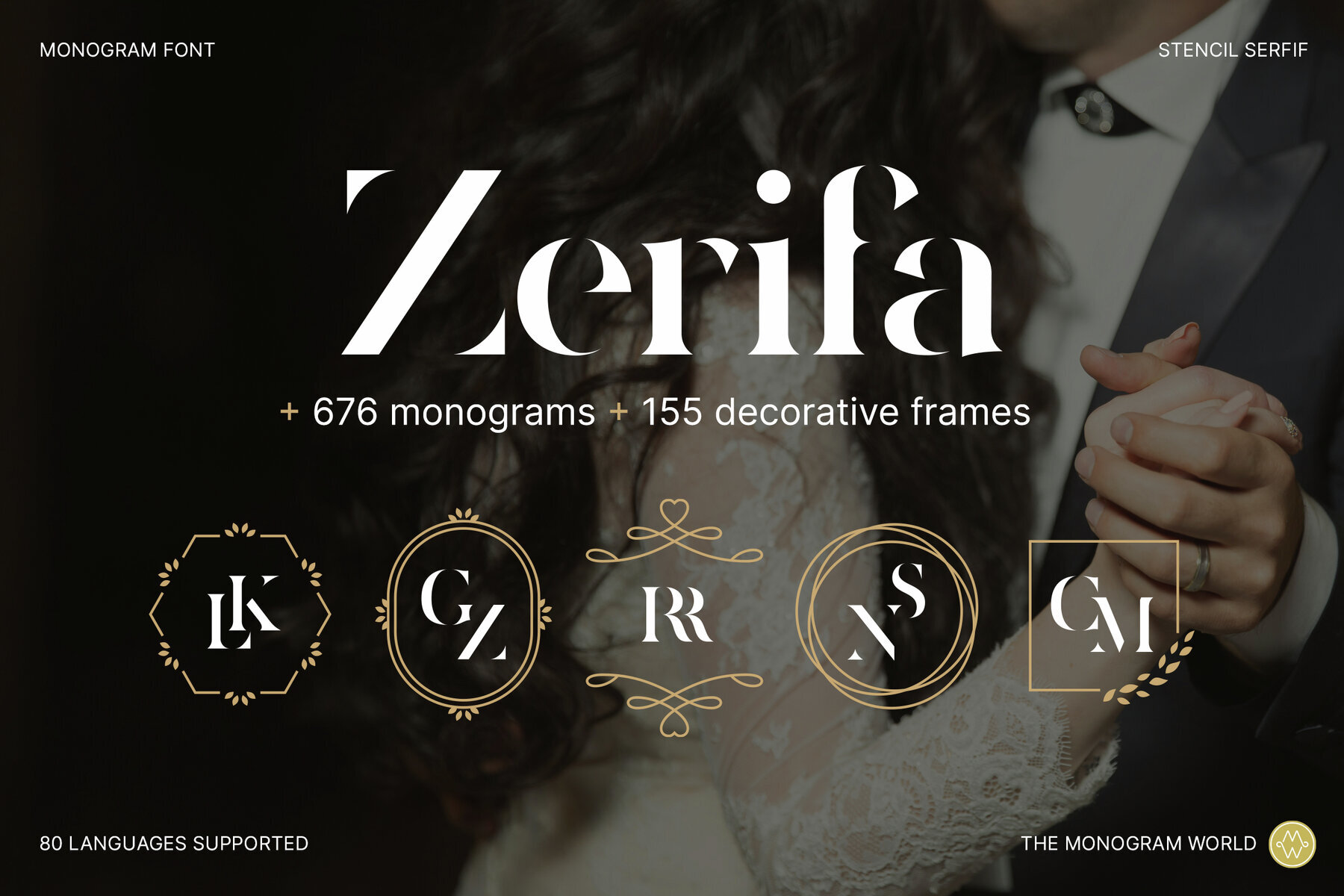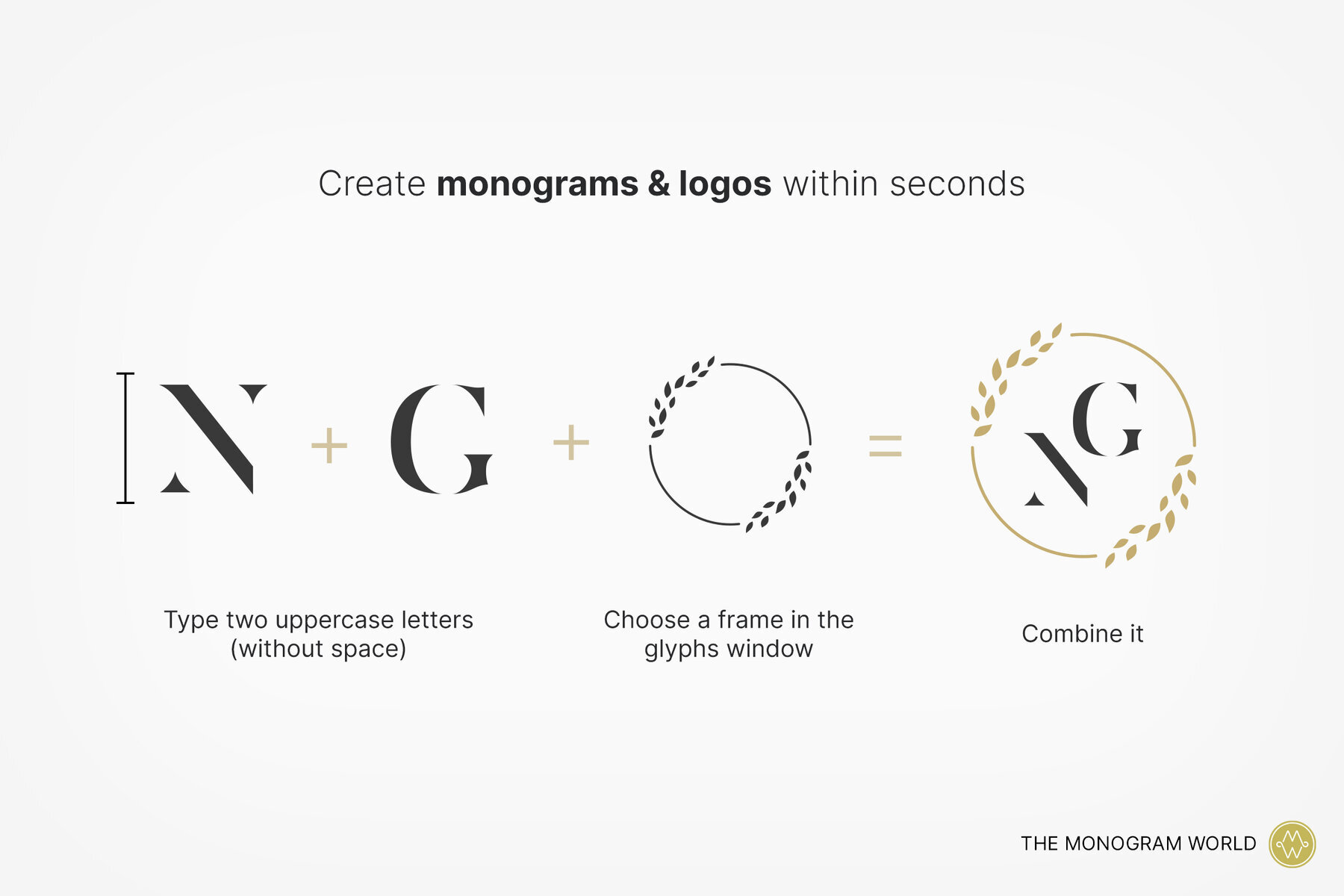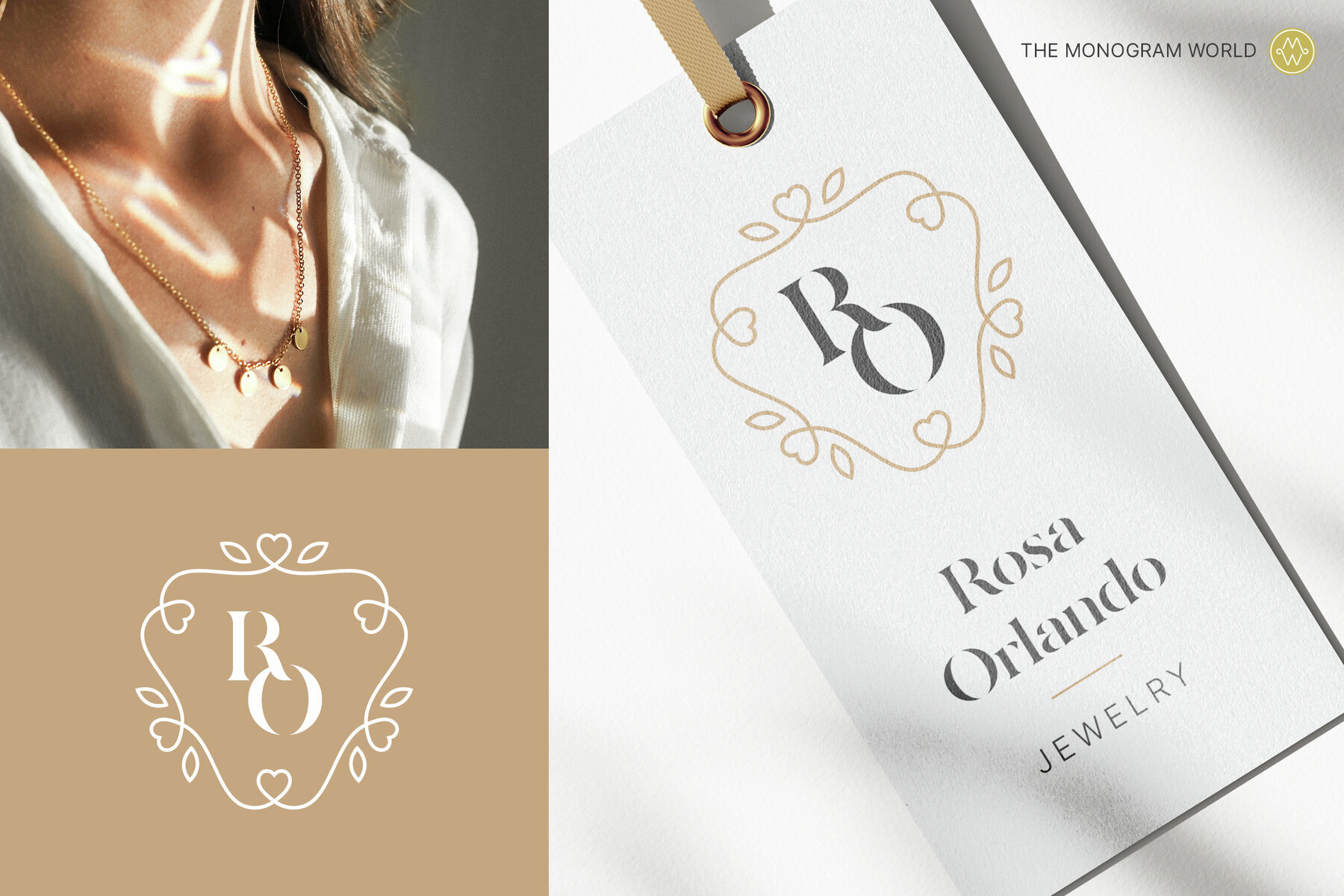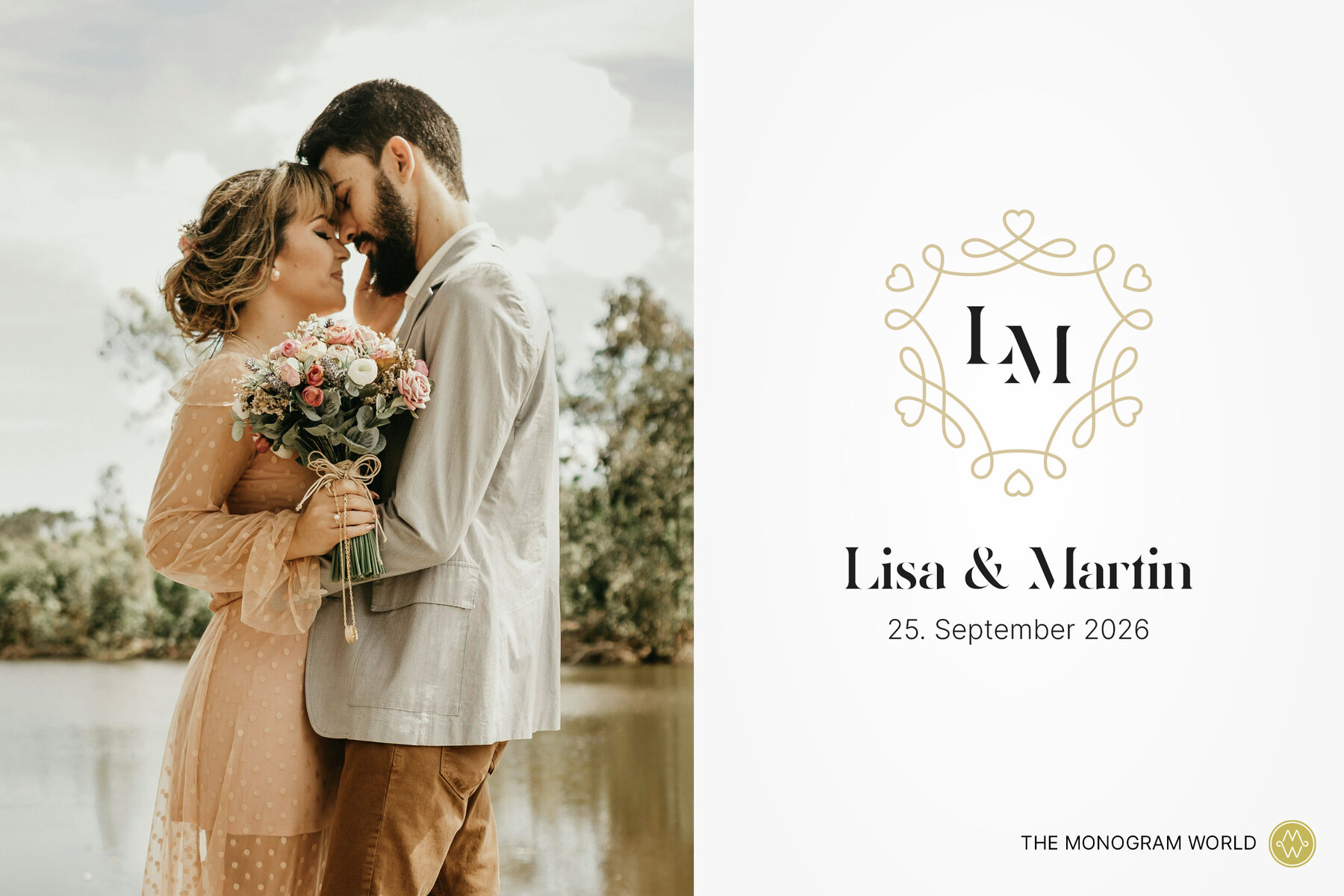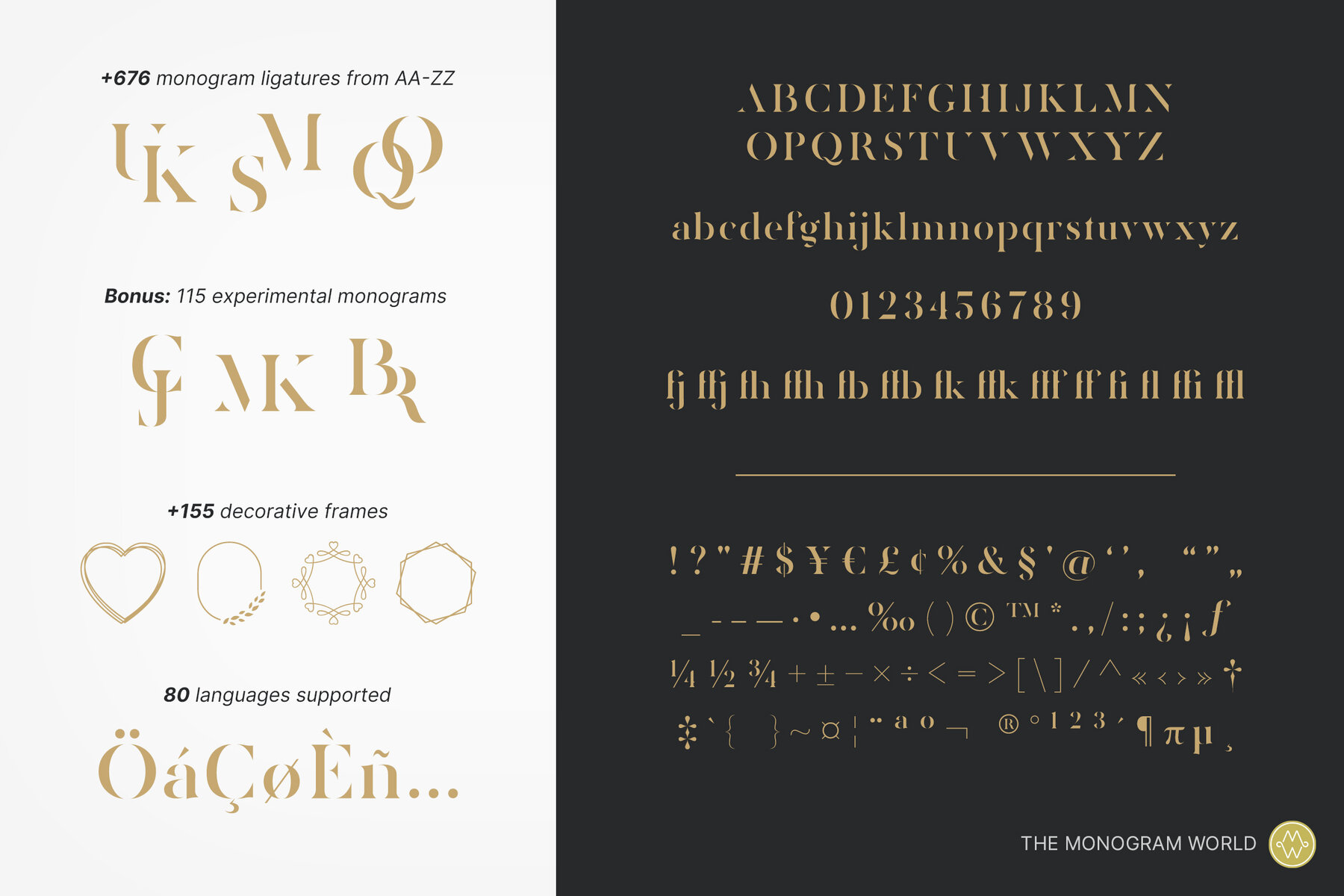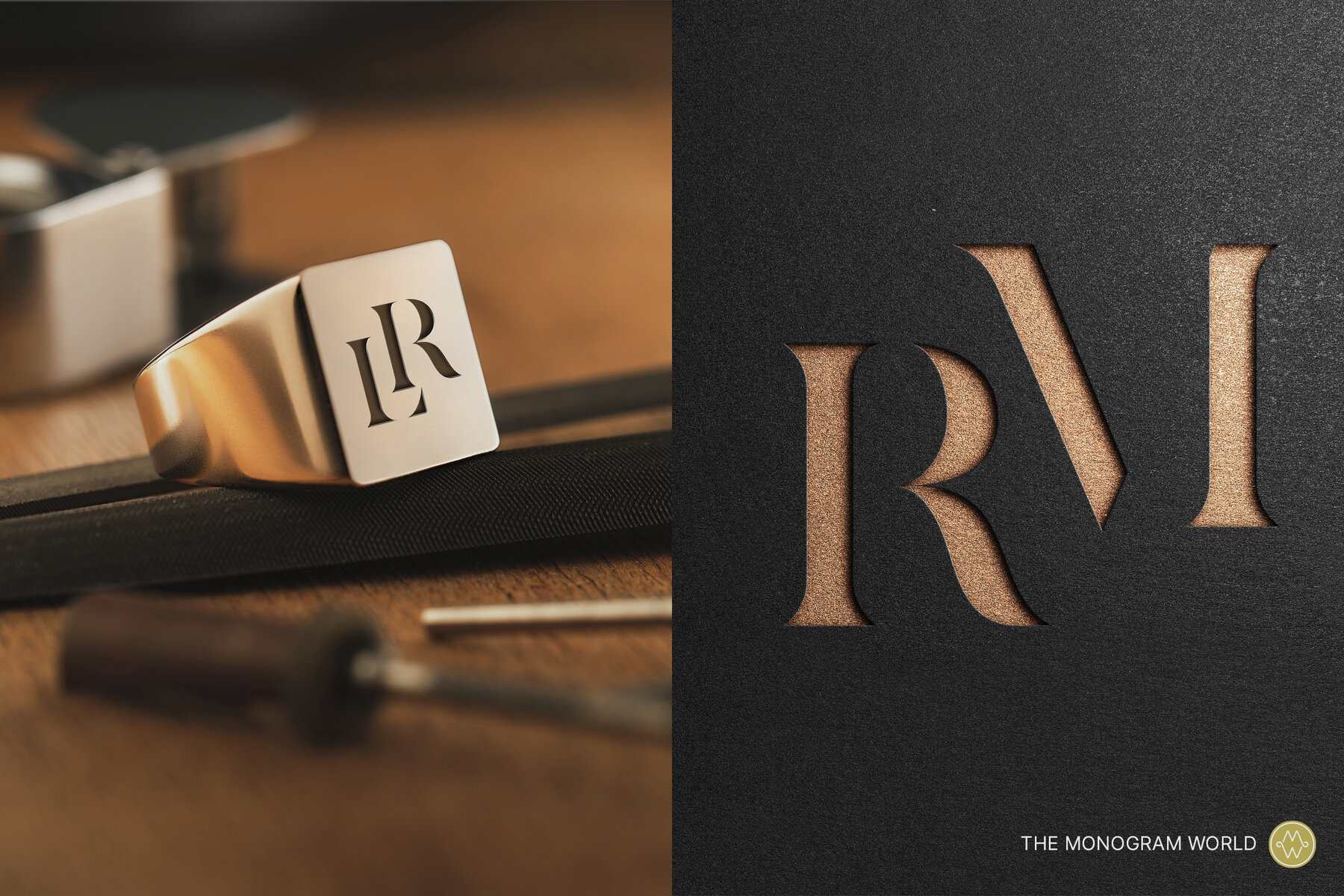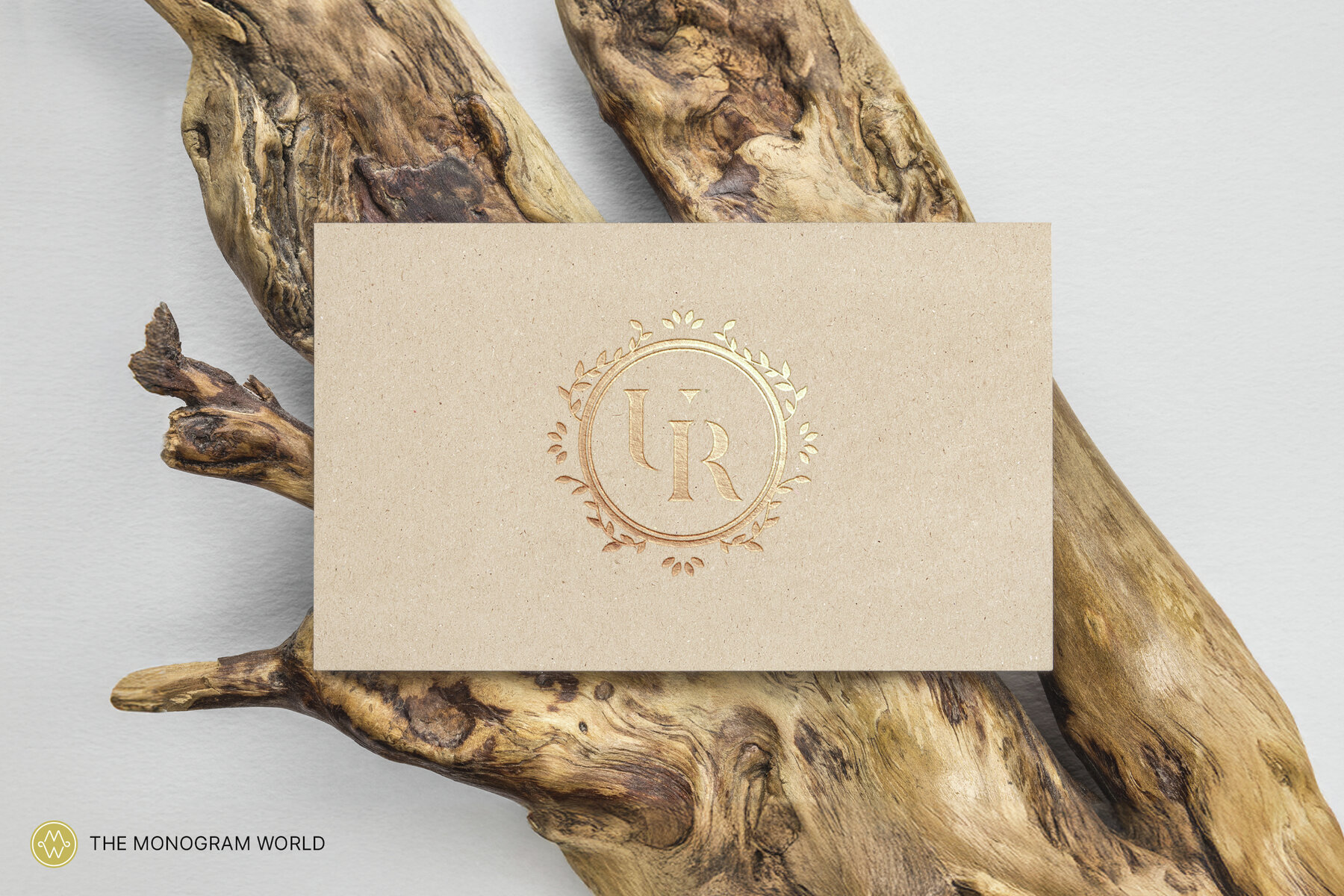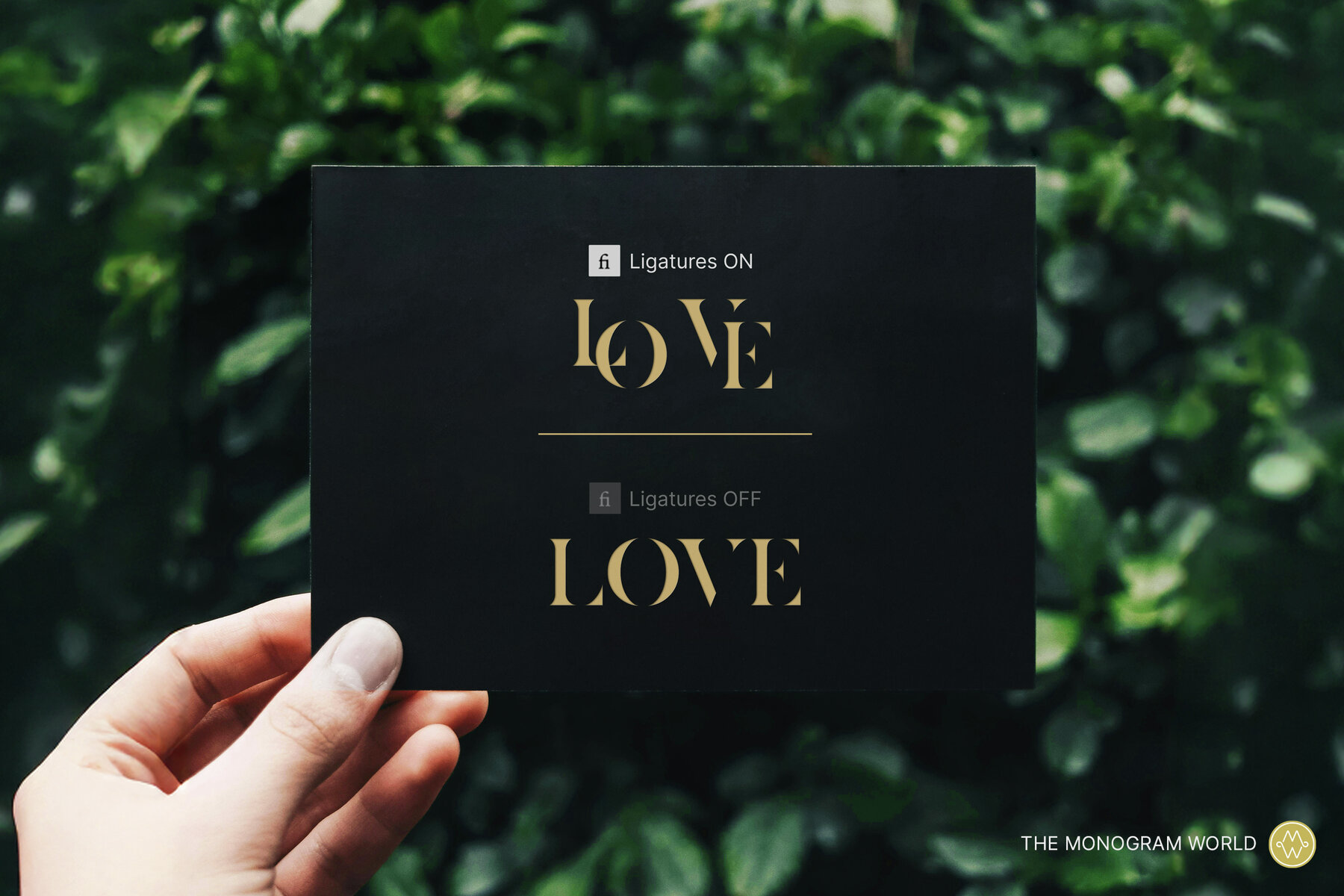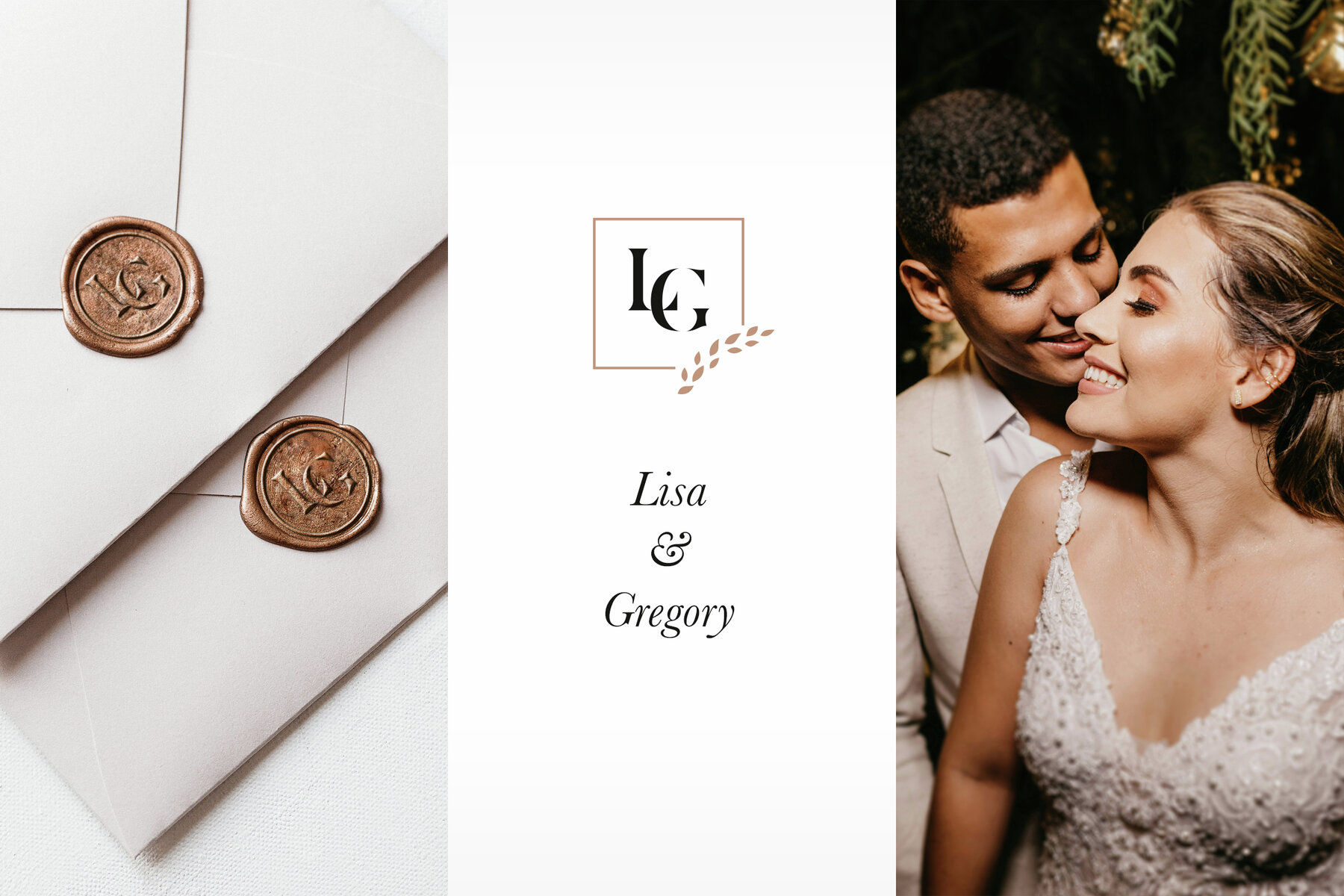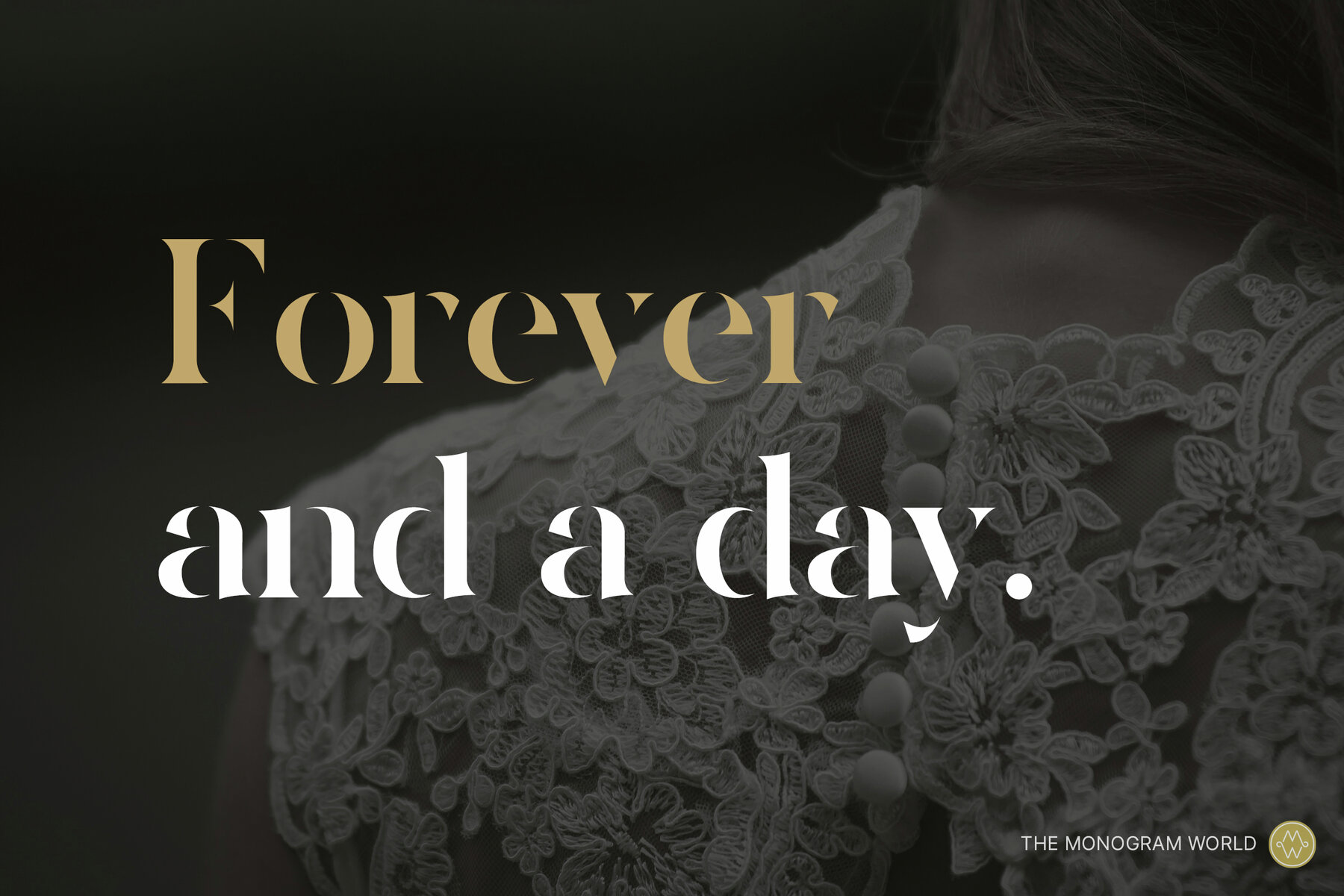
Zerifa = Display font + monogram logo creator toolkit Zerifa is a unique „stencil serif“ typeface that includes 676 pre-designed monogram logos and 155 fancy frames. It’s so easy to create amazing logos just with a few clicks! Features 2 in 1: Display Type Face + Monogram Logo Creator Toolkit A unique combination of two worlds! 676 monograms + 115 bonus monograms + 155 frames = 122.500+ possibile variations Style: The sharp, steeply tapered serifs give it a bold, modern and elegant appearance, while the carefully crafted curves embody the essence of perfection. The combination of thick stems and disappearing hairlines creates the most possible contrast, but still assuring perfect readability. Examples of use: Zerifa delivers a highly sophisticated feeling, making it perfect for classy wedding monograms. But not only that, it is also an excellent choice for luxury brands and products in the fields of beauty, fashion, jewelry, art, ateliers, handicraft, yoga studios, wine & spirits, hotels or restaurants & bars. ::: FAQ ::: Software: Can I use it in Word / PowerPoint / Canva? The general font works fine. To get full functionality of all the special features (like ligatures and decorative frames) you have to use professional design software like Adobe Illustrator, InDesign, Photoshop, Sketch, Affinity, etc. What are ligatures? A ligature is a combination of two or more letters that are joined together into a single character to improve readability or create a unique design. It's commonly used in typography to enhance the flow of text or for decorative purposes in logos and design work. Ligatures ON / OFF What is a monogram logo? A monogram logo is a design that combines two or more letters, typically the initials of a brand or individual, into a single symbol or mark. It's often used to create a simple, stylish, and recognizable identity. A wedding monogram often uses the initials of bride and groom (all genders) first names to represent their connected lives. What can I use a monogram for? You can use a monogram logo for wedding design and all kind of branding purposes, such as representing a company, personal brand, or product line. They're often used on business cards, product packaging, clothing, stationery, and even in digital media to create a distinctive and professional visual identity. Monograms are especially popular for luxury brands, fashion labels, and personal branding. Full language list (Adobe Latin-1 + a few more) Afrikaans, Albanian, Asu, Basque, Bemba, Bena, Cebuano, Danish, German, English, Estonian, Faroese, Filipino, Finnish, French, Friulian, Galician, Gaelic (Scotland), Greenlandic, Gusii, Ido, Indonesian, Interlingua, Irish, Icelandic, Italian, Javanese, Jju, Kabuverdianu, Kalenjin, Catalan, Kinyarwanda, Kölsch, Cornish, Corsican, Kurdish, Lithuanian, Lojban, Luhya, Luo, Luxembourgish, Machame, Makhuwa-Meetto, Makonde, Malagasy, Malay, Manx, Morisyen, Low German, Lower Sorbian, North Ndebele, North Sotho, Norwegian (Bokmål), Norwegian (Nynorsk), Nyankole, Upper Sorbian, Occitan, Oromo, Polish, Portuguese, Rhaeto-Romanic, Rejang, Rombo, Rukiga, Rundi, Rwa, Samburu, Sango, Sangu, Sardinian, Swedish, Swiss German, Sena, Shambala, Shona, Slovakian, Slovenian, Soga, Somali, Spanish, Swahili, Southern Ndebele, Southern Sotho, Sundanese, Swazi, Taita, Taroko, Teso, Czech, Tsonga, Tswana, Turkmen, Hungarian, Vunjo, Walliserdeutsch, Walloon, Wolastoqey, Xhosa, Zulu